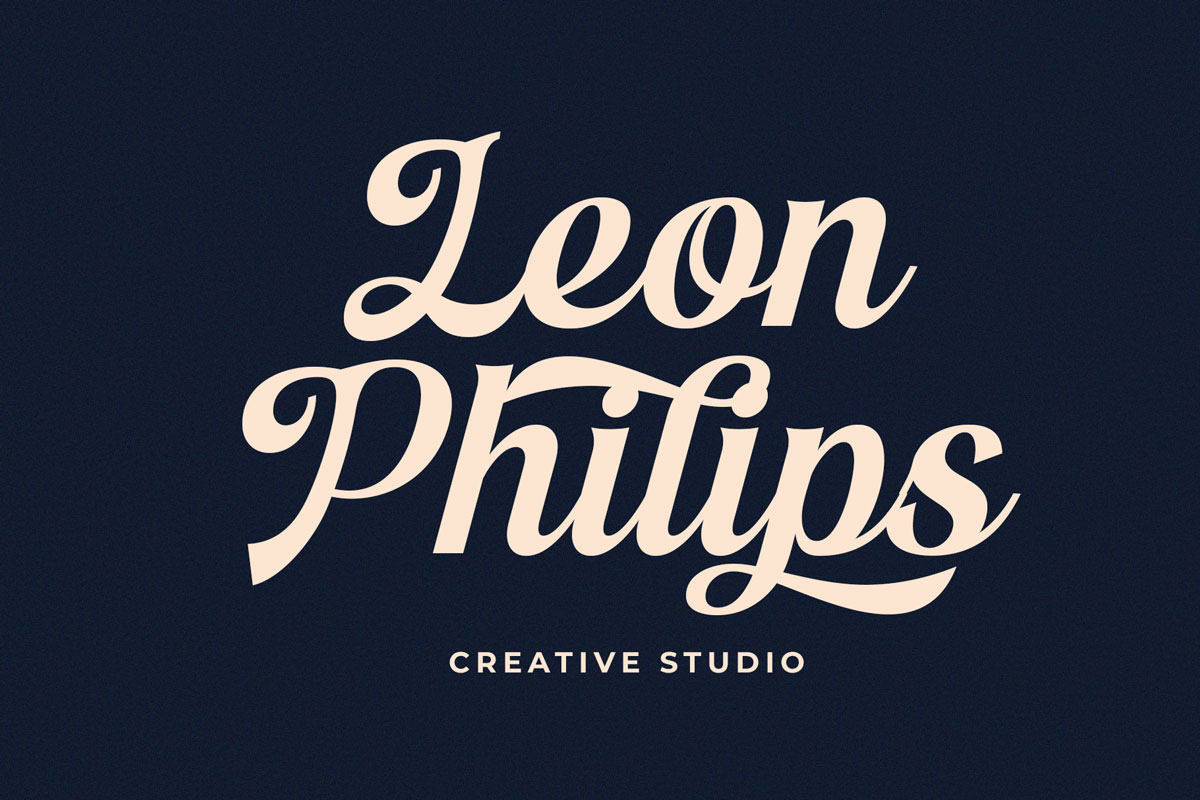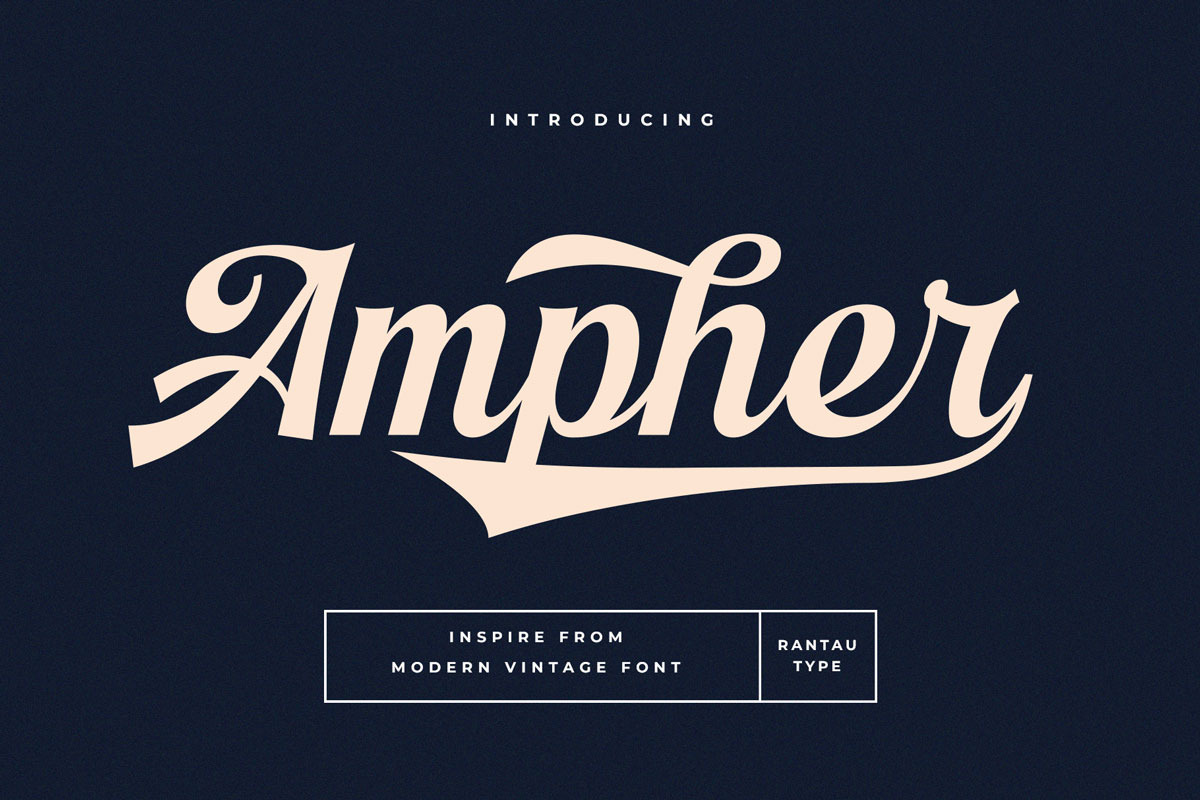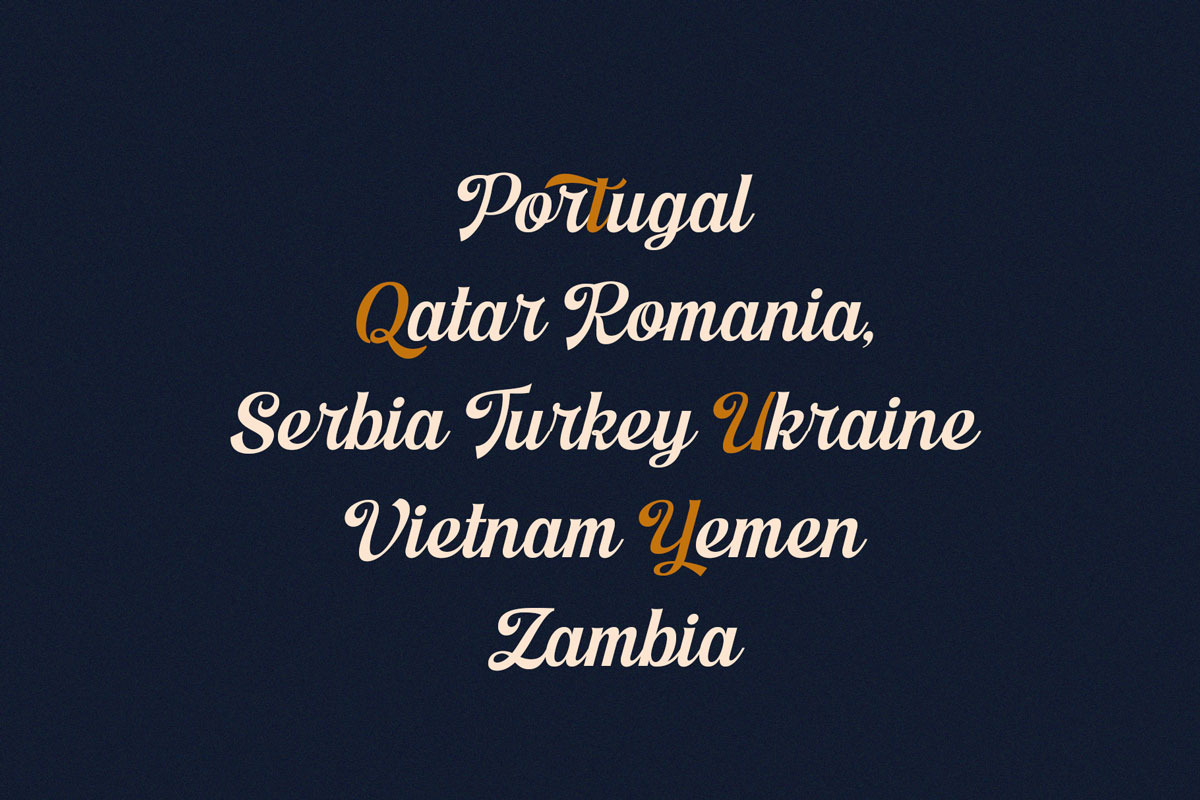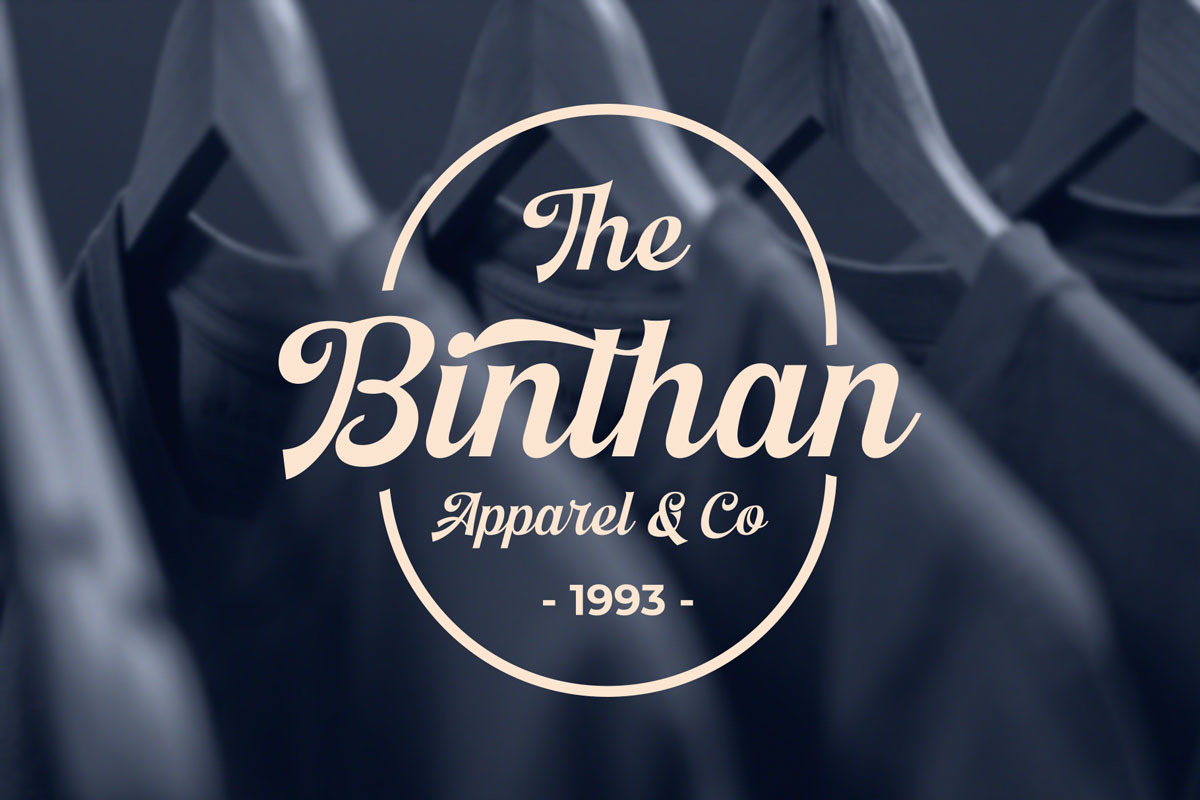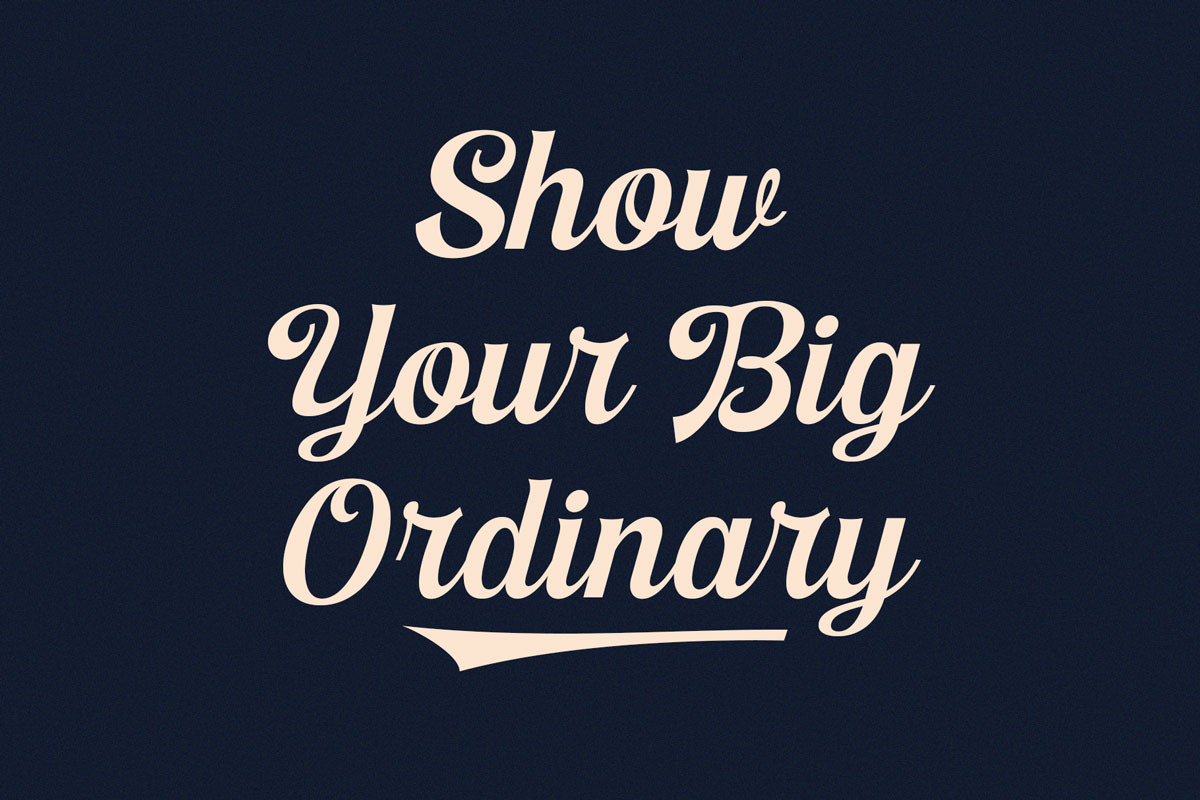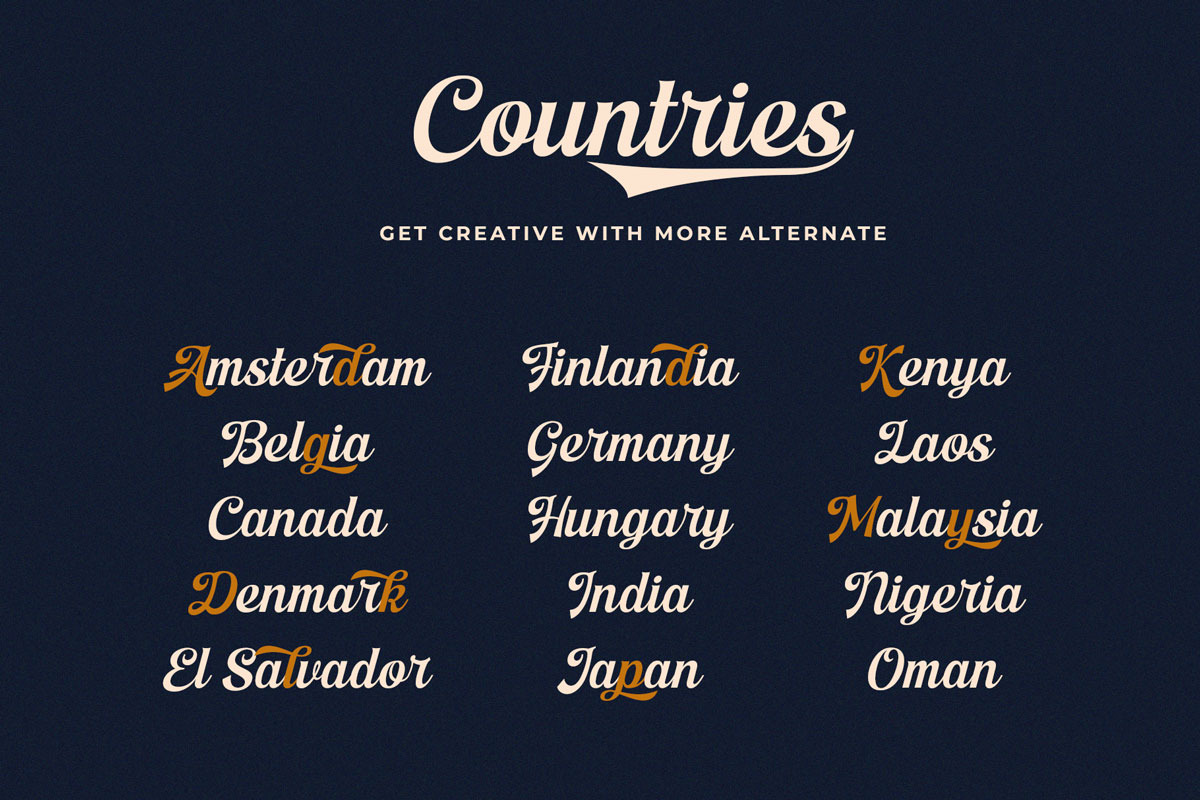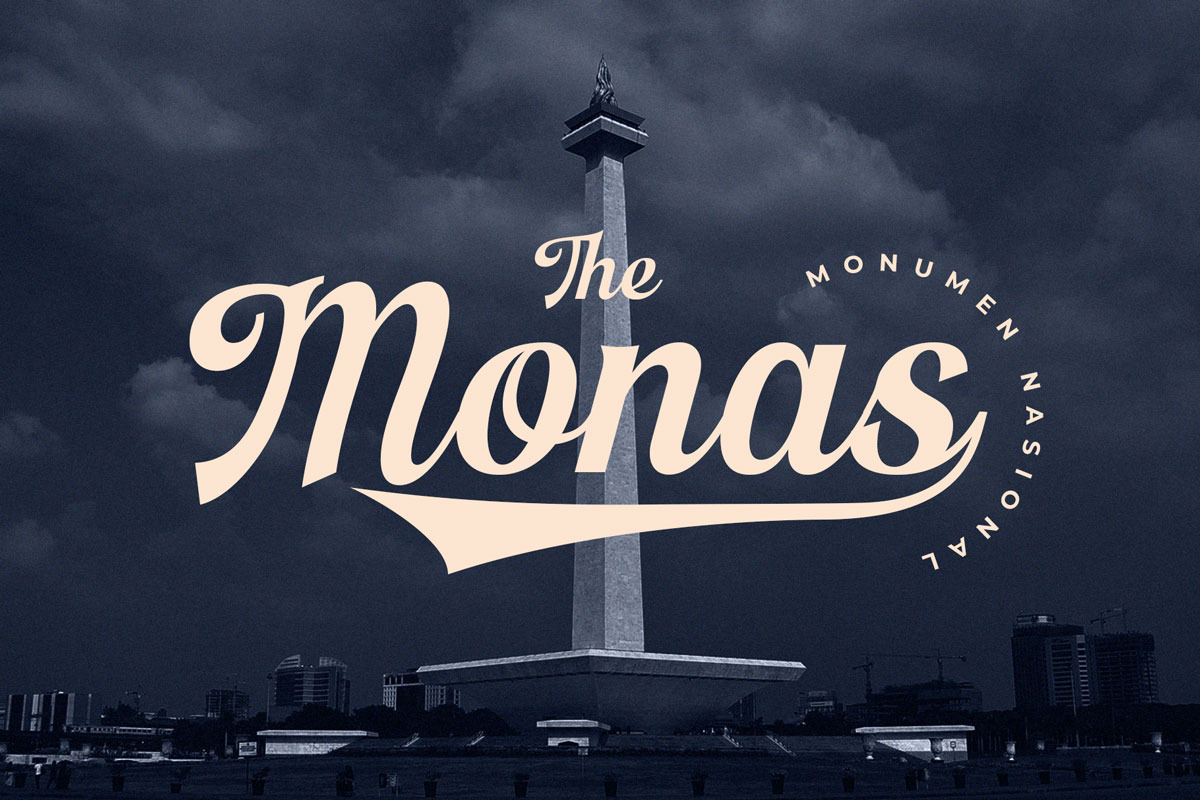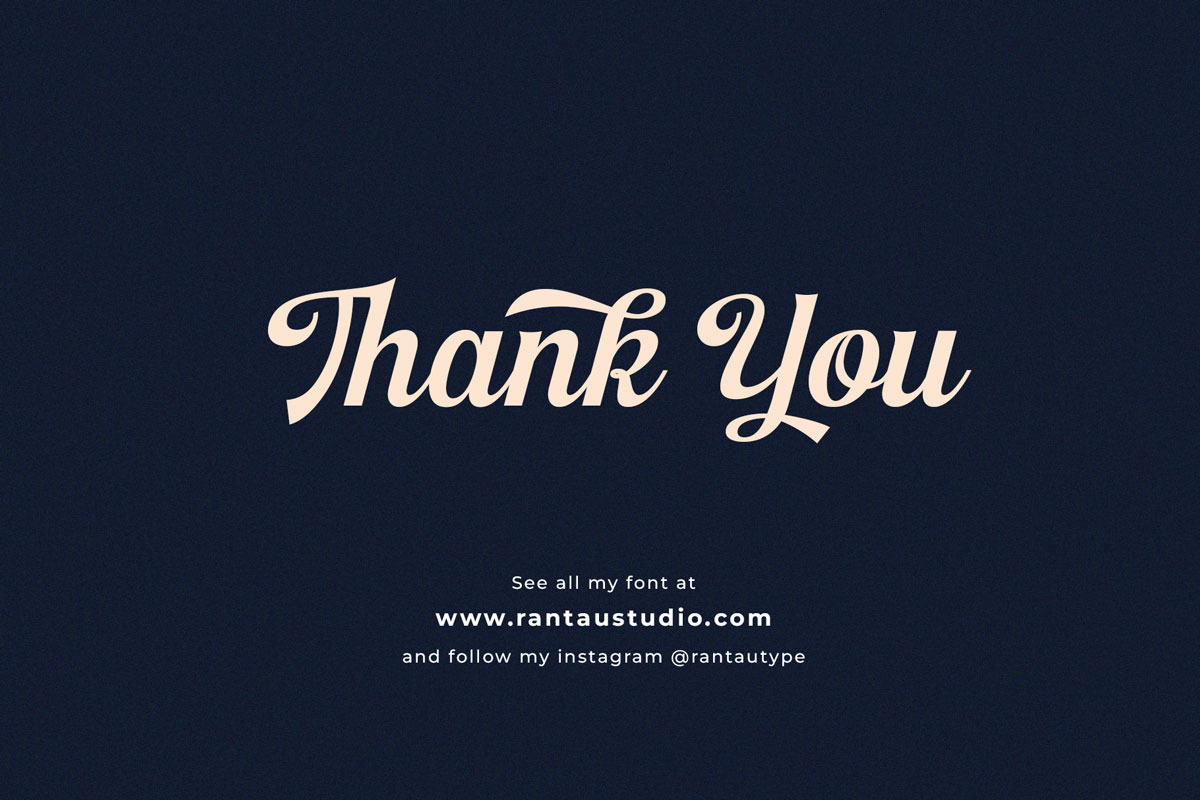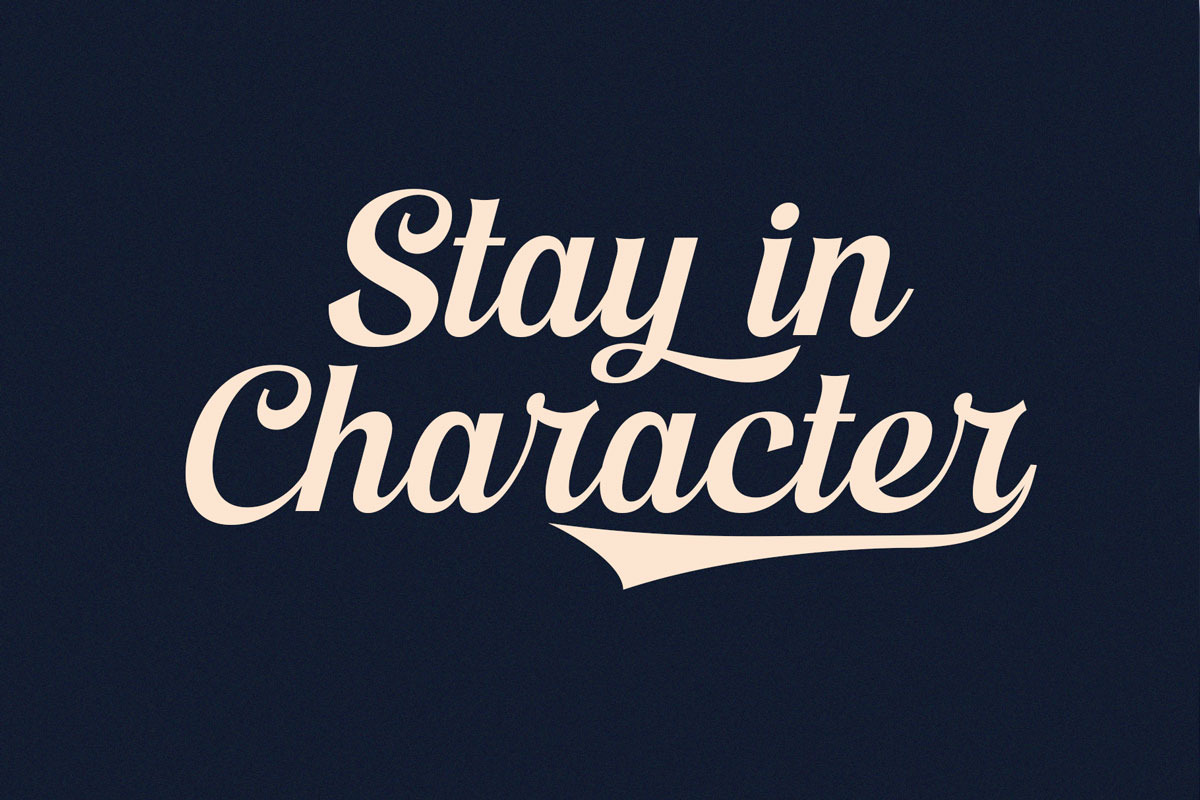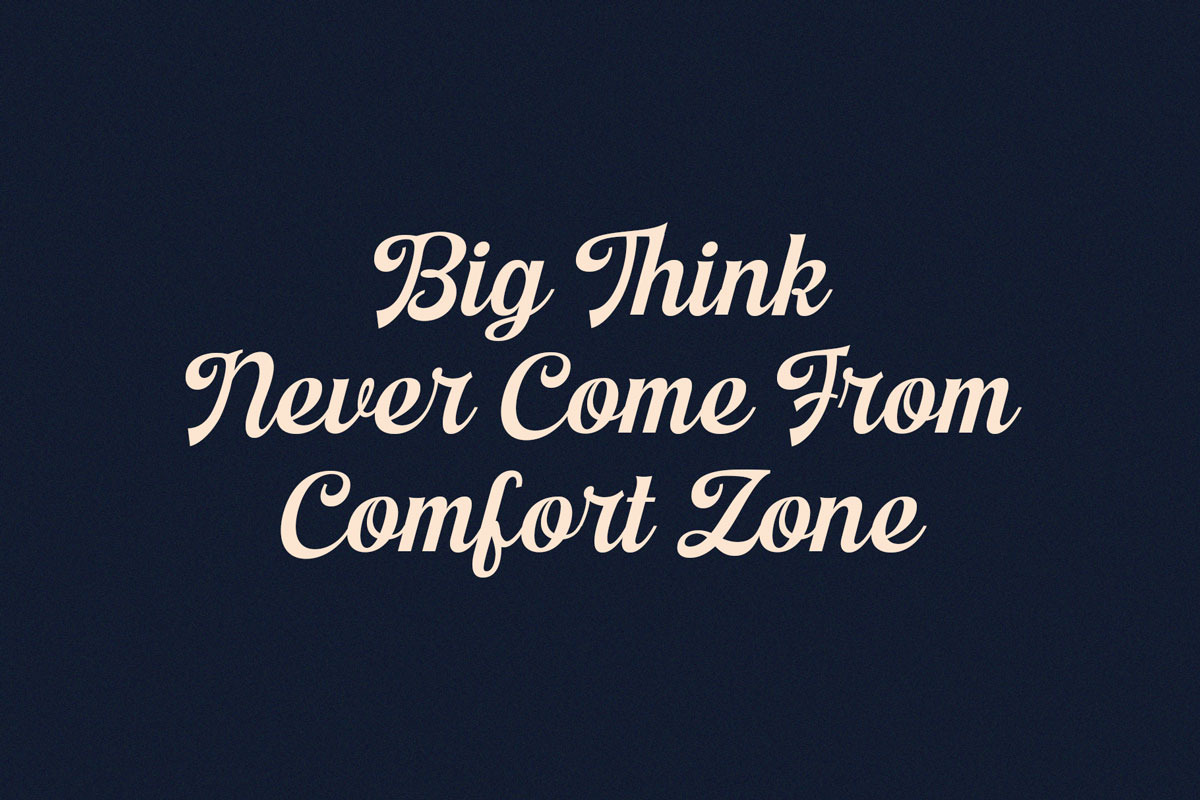
Ampher - Modern Vintage Font
Hi Ladies and Gentleman ! Proudly present modern vintage font called Ampher by rantautype.
Ampher is a script font with vintage looks. It's inspire by modern vintage & retro style.
Ampher It come with a unique shape and make you design more vintage. Ideal for logos, handwritten quotes, product packaging, header, poster, merchandise, apparel, social media , greeting cards & more. Ampher here to make you design to next level!!
- Standar character A-Z and a-z
- ligature
- Multilinggual